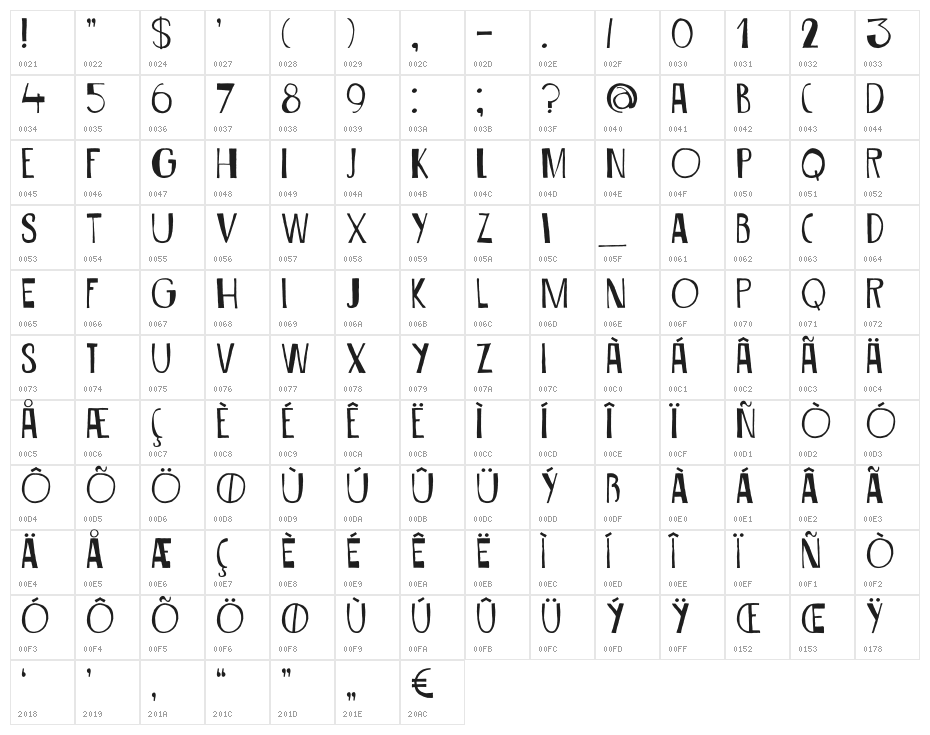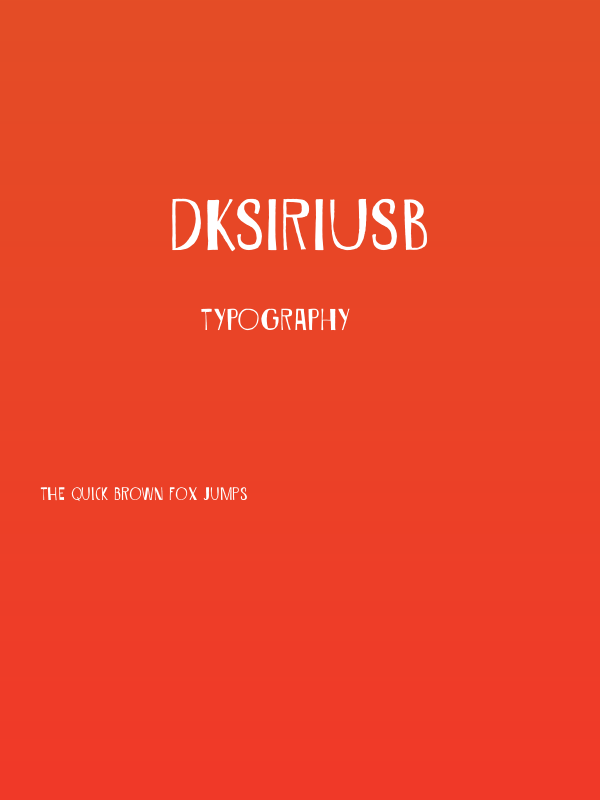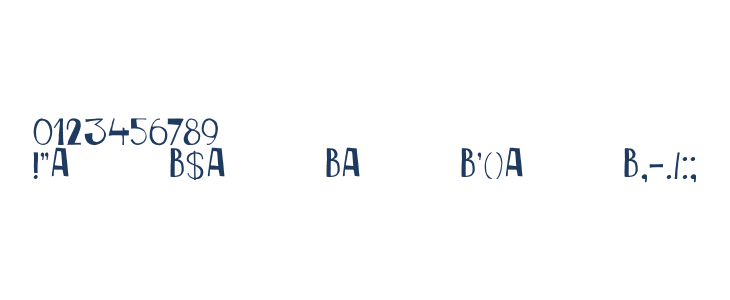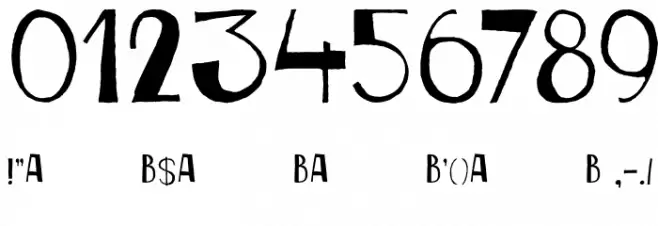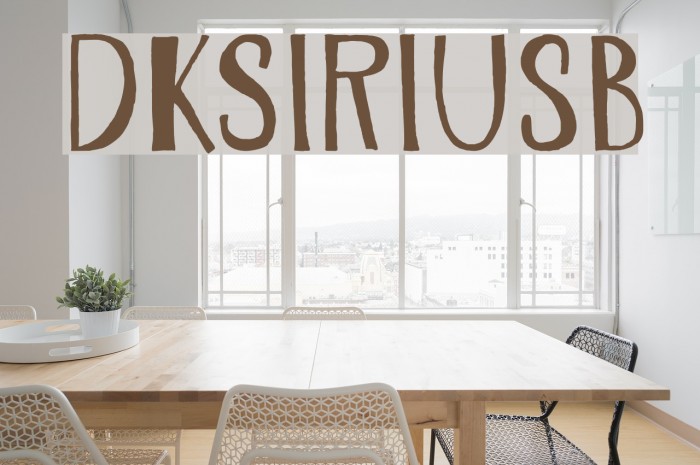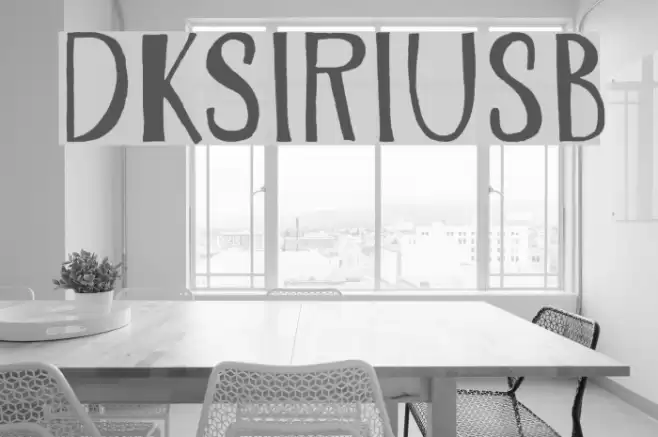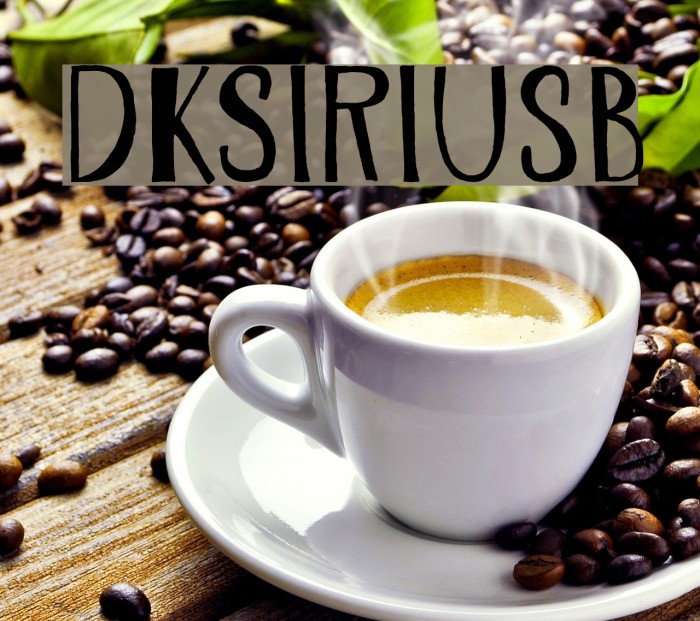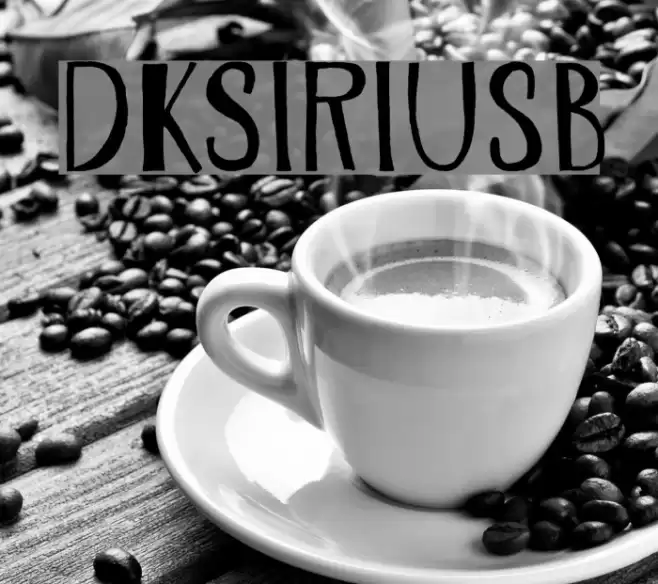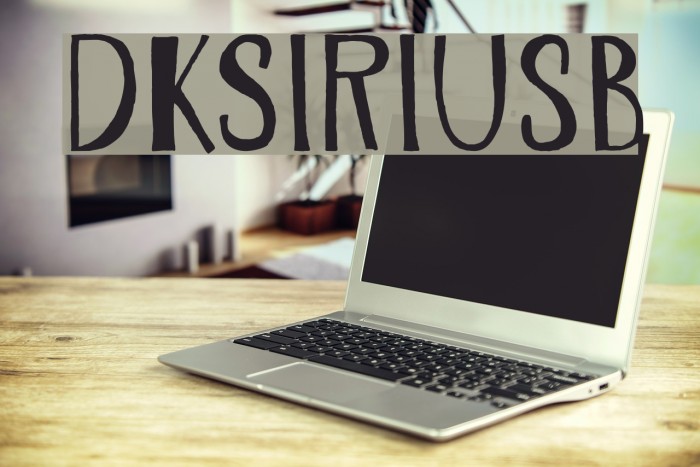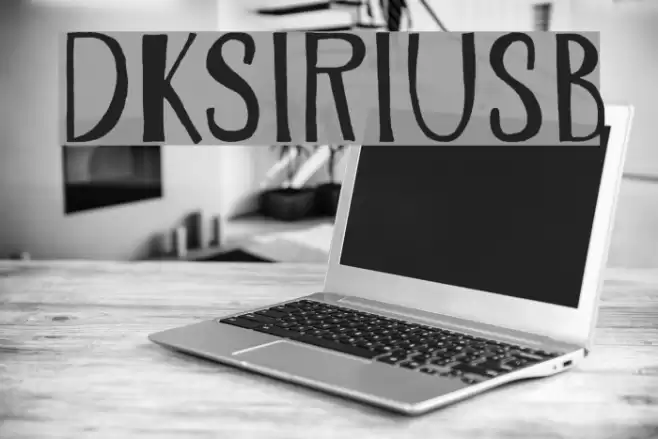
DKSiriusB Font
DKSiriusB Description
This font features a hand-drawn, artistic style with irregular strokes and a playful character. The uppercase letters are bold and slightly uneven, giving a whimsical and informal appearance. The lowercase letters maintain the same playful essence, with varying stroke widths that add a dynamic feel. Numbers are similarly styled, with a quirky and unique presentation. Special characters are creatively integrated, enhancing the overall artistic vibe. This font is perfect for projects that require a touch of creativity and individuality, such as posters, invitations, or branding for artistic ventures.
| Proposed Projects | Ideal for artistic projects, creative branding, posters, and invitations. |